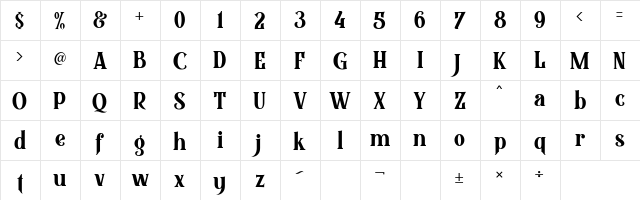
Black Quality Regular
| Foundry | Alit Design |
| Designer | Alit Suarnegara |
Design Context for Black Quality Typeface
Black Quality takes a measured approach to typography — its balanced proportions and neutral character make it a reliable workhorse for both digital and print work.